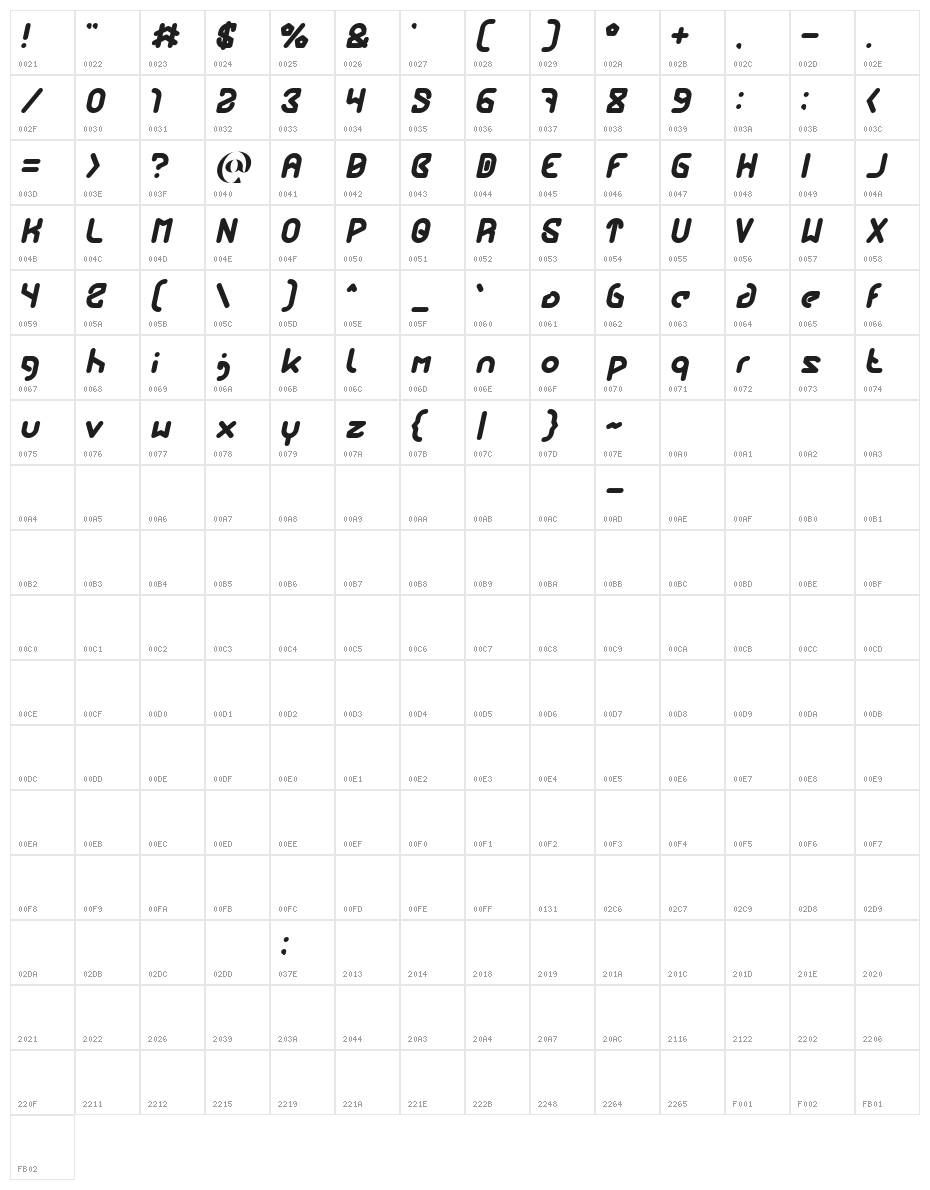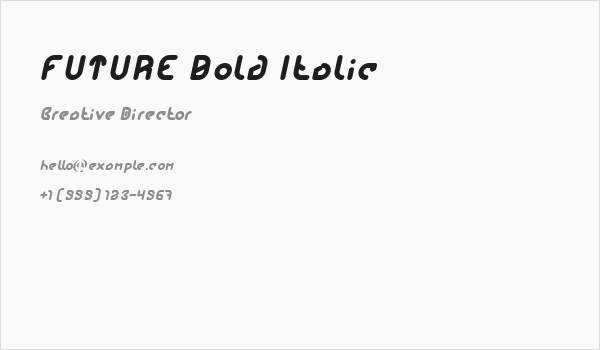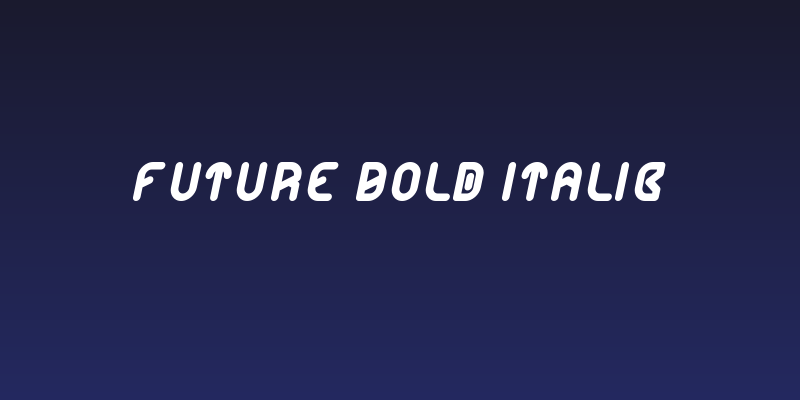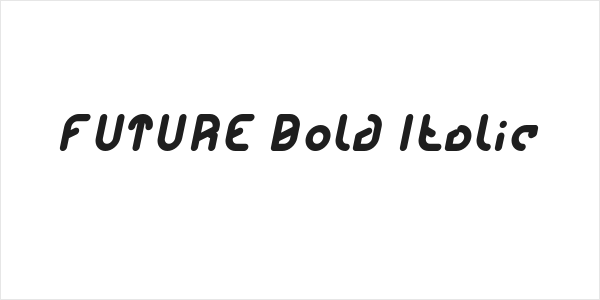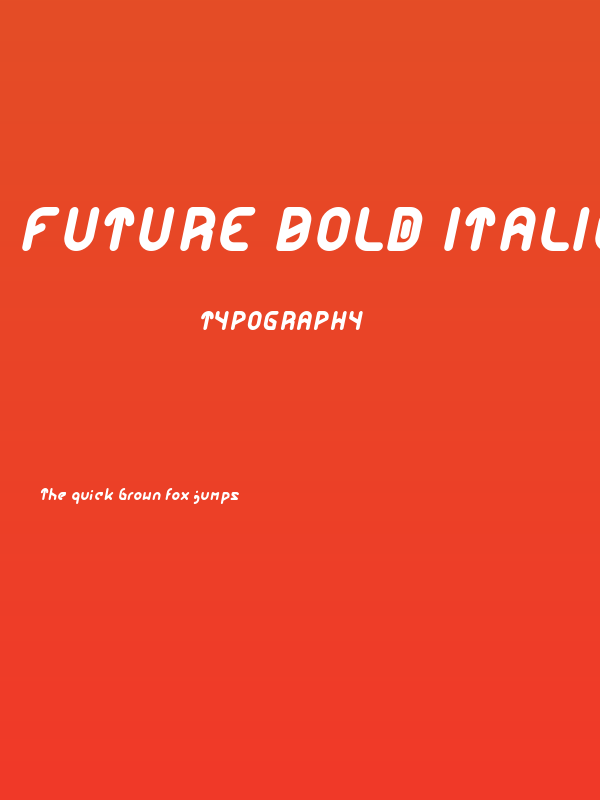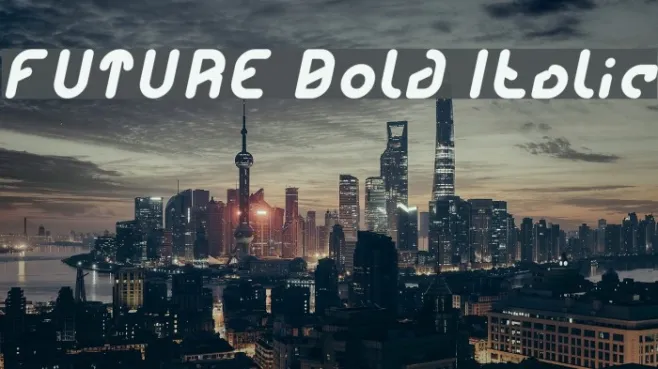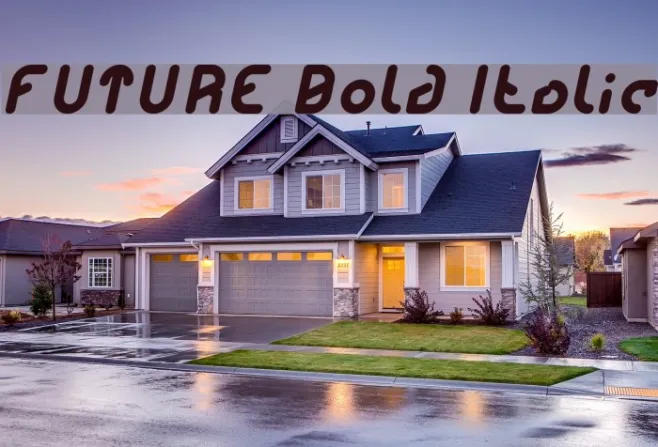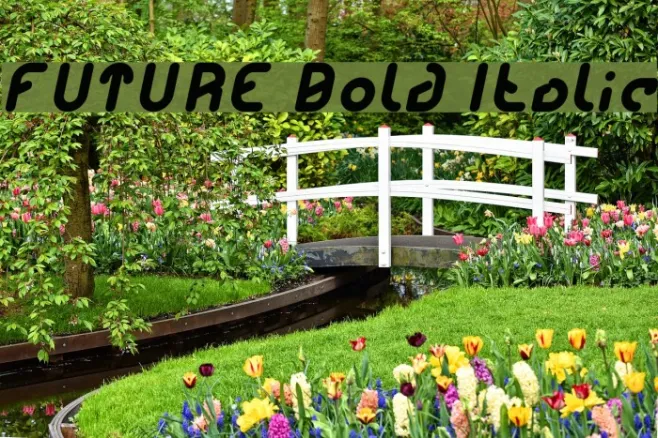
FUTURE Bold Italic Font
FUTURE Bold Italic Description
This font features a bold and italicized style with a futuristic and dynamic appearance. The characters are rounded and slightly slanted, giving a sense of motion and modernity. The uppercase letters are robust and prominent, while the lowercase letters maintain a consistent flow with smooth curves. Numbers and special characters follow the same bold and italicized design, ensuring uniformity across all elements. The font's design is clean yet expressive, making it suitable for projects that require a contemporary and energetic look.
| Proposed Projects | Ideal for technology branding, modern advertising, sports team logos, and dynamic poster designs. |